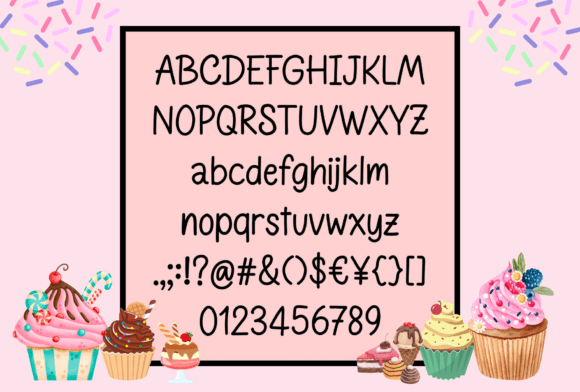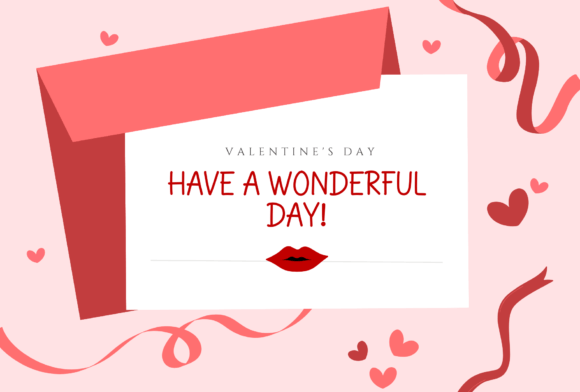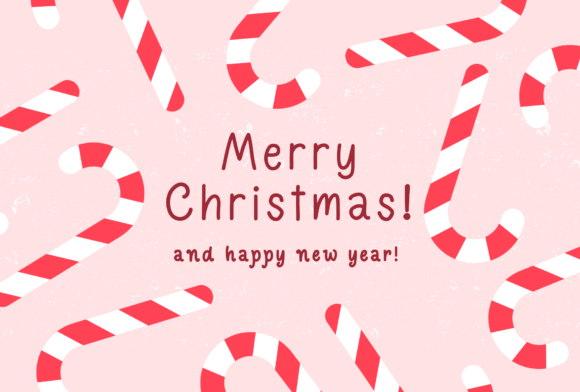
Introduction to Lucky Girl Font
Do you remember the excitement of rummaging through your grandmother’s old craft box, filled with colorful markers, glittery stickers, and handmade cards? For many of us, this is where our love for creative projects began. And what’s a creative project without a dash of personality? That’s where the Lucky Girl Font comes in – a charming, handwritten font that adds a touch of whimsy to any design.
As a valuable design resource, the Lucky Girl Font is perfect for designers looking to elevate their work with a high-quality, unique touch. Whether you’re creating a birthday card, a Mother’s Day message, or a Valentine’s Day gift, this font is sure to bring a smile to anyone’s face. And the best part? It’s available for free download with a transparent background, making it easy to incorporate into any project.
Lucky Girl Font
- Unique and elegant design, perfect for creative projects and designs.
- High-quality font with transparent background, ideal for graphic designers and artists.
- Comes in a single size, but scalable to fit different design needs.
- Resolution: 300 DPI, suitable for printing and digital use.
- Perfect for branding, logos, and typography-based designs due to its elegant and modern feel.
Honest Review: Lucky Girl Font
As a designer, I’m always on the lookout for high-quality design resources that can elevate my creative projects. Recently, I came across the Lucky Girl Font, and I’m excited to share my honest review.
- ✨ The font is incredibly versatile and can be used for a variety of creative projects, from branding to typography.
- ✨ The transparent background feature allows for seamless integration with any design element.
- ⚠️ The font may not be suitable for projects that require a more formal or traditional tone.
- ⚠️ Some users may find the font to be a bit too playful or whimsical for their taste.
Overall, I’m impressed with the Lucky Girl Font. It’s a high-quality design resource that can add a touch of personality to any creative project. While it may not be perfect for every designer, it’s definitely worth considering for those looking for a unique and eye-catching font.
Lucky Girl Font
For a high-quality design, use the Lucky Girl Font in combination with other design resources, such as images and graphics, to create a visually appealing and cohesive look. Experiment with different font sizes, colors, and styles to add depth and interest to your design.
The Lucky Girl Font is a versatile design resource that can be used for a variety of creative projects, including blog posts, social media graphics, and marketing materials. Its transparent background makes it easy to use in combination with other design elements.
Yes, the Lucky Girl Font is designed to be scalable and suitable for use in large-scale creative projects, such as signage, billboards, or website headers. Its high-quality design ensures that it will look great at any size.